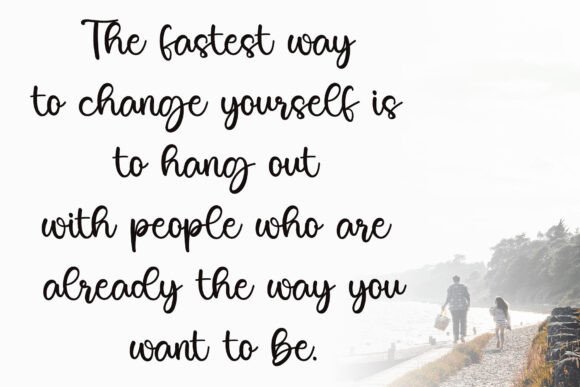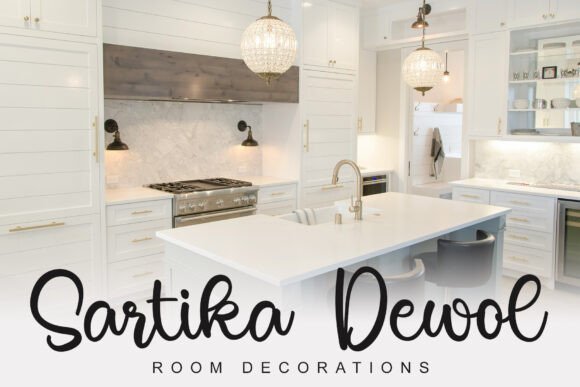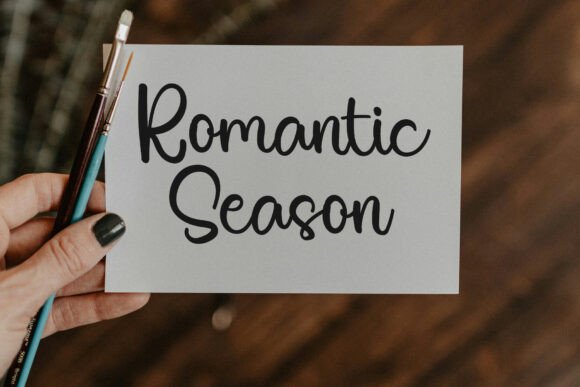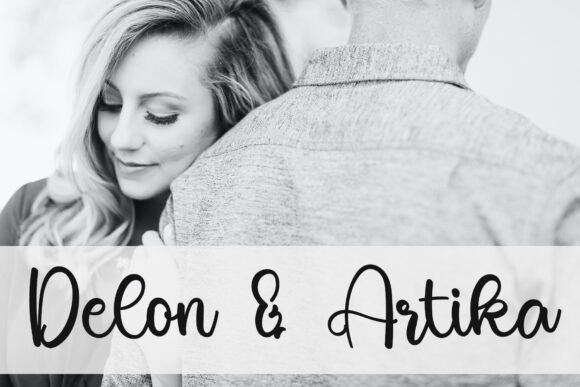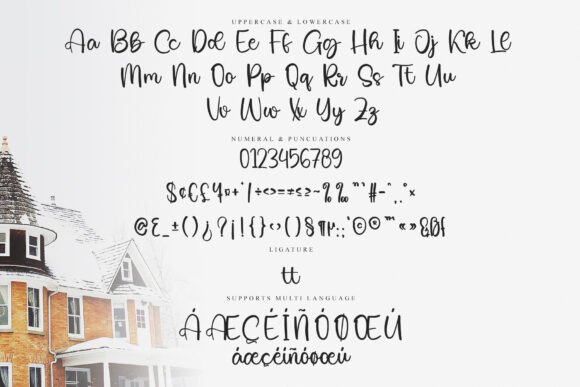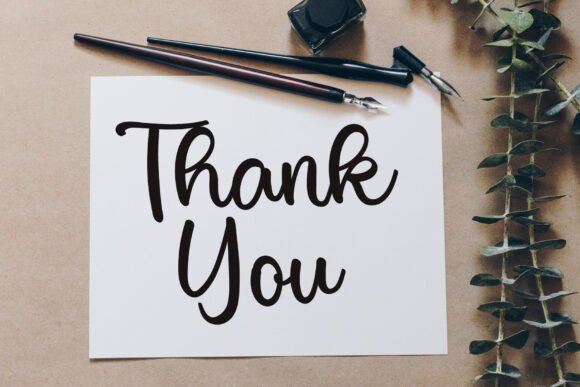
Discover the Delightful World of Children Signature Font
Are you a designer, crafty enthusiast, or simply someone who loves to add a personal touch to their creative projects? Look no further than the enchanting Children Signature font. This extraordinary font combines the beauty of handwritten strokes with a bold and playful style, making it perfect for adding a fun yet elegant touch to any project.
The Unique Charm of Children Signature Font
Children Signature font boasts smooth curves, artistic flair, and a charming personality that sets it apart from other fonts. Its whimsical and playful style makes it an excellent choice for a variety of creative endeavors, from greeting cards and invitations to posters, logos, and more. Whether you’re looking for a casual, stylish, or whimsical look, this font delivers a truly remarkable design experience.
Key Features of Children Signature Font
- Handwritten Strokes: The font features beautiful, handcrafted strokes that give it a personal and unique feel.
- Smooth Curves: The smooth curves and flowing lines of the font create a sense of elegance and sophistication.
- Artistic Flair: The font’s artistic flair adds a touch of creativity and imagination to any project.
- Playful Style: The playful style of the font makes it perfect for projects that require a fun and youthful approach.
Perfect for Various Creative Projects
Children Signature font is versatile and can be used for a wide range of creative projects, including:
- Greeting Cards: Add a personal touch to your greeting cards with this beautiful font.
- Invitations: Create stunning invitations for parties, weddings, and other special events.
- Posters: Use the font to create eye-catching posters for movies, events, or advertising campaigns.
- Logos: Create unique and memorable logos for businesses, products, or services.
- Crafting Projects: Add a touch of elegance and sophistication to your crafting projects, such as scrapbooking, journaling, or card making.
Why Choose Children Signature Font?
With so many fonts available, why choose Children Signature font? Here are a few reasons:
- Unique and Exclusive: The font’s unique and exclusive design sets it apart from other fonts.
- Elegant and Sophisticated: The font’s smooth curves and artistic flair add an touch of elegance and sophistication to any project.
- Fun and Playful: The font’s playful style makes it perfect for projects that require a fun and youthful approach.
- Easy to Read: The font is easy to read, making it perfect for body text or headlines.
Tips for Using Children Signature Font
Here are a few tips for using Children Signature font:
- Use it as a Headline Font: Use the font as a headline font to add a touch of elegance and sophistication to your project.
- Pair it with Other Fonts: Pair the font with other fonts to create a unique and visually appealing design.
- Experiment with Colors: Experiment with different colors to find the perfect match for your project.
- Use it for Body Text: Use the font for body text to add a touch of personality and whimsy to your project.